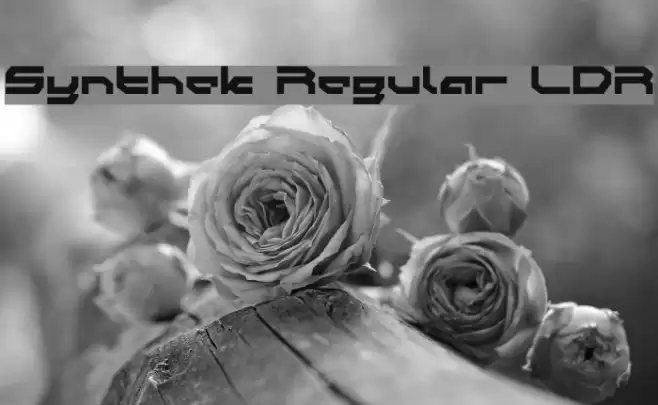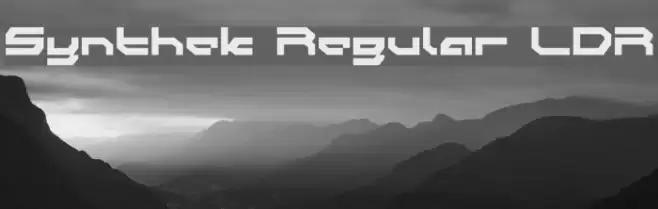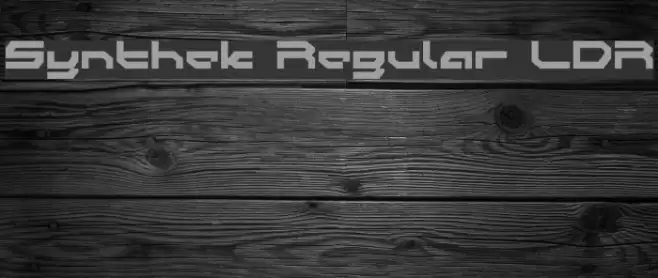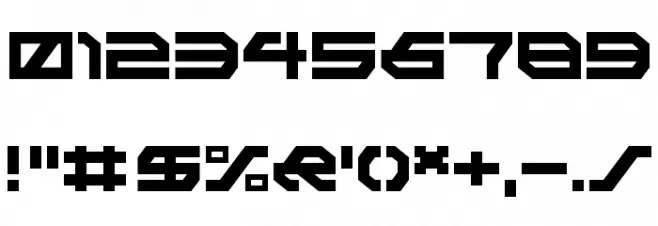
Synthek Regular LDR Font
Synthek Regular LDR Description
This font features a futuristic and geometric design, characterized by sharp angles and a blocky structure. The uppercase and lowercase letters maintain a consistent style, with distinct angular cuts and a mechanical feel. The numerals and special characters follow the same aesthetic, providing a cohesive look across all glyphs. The font's unique appearance makes it stand out, with a design that suggests technology and innovation. Its bold and structured form is ideal for projects that require a modern and edgy touch.
A futuristic, geometric font with sharp angles and a mechanical feel from Uncategorized fonts.
- Proposed Projects: Ideal for technology branding, sci-fi movie posters, video game titles, and modern digital interfaces.